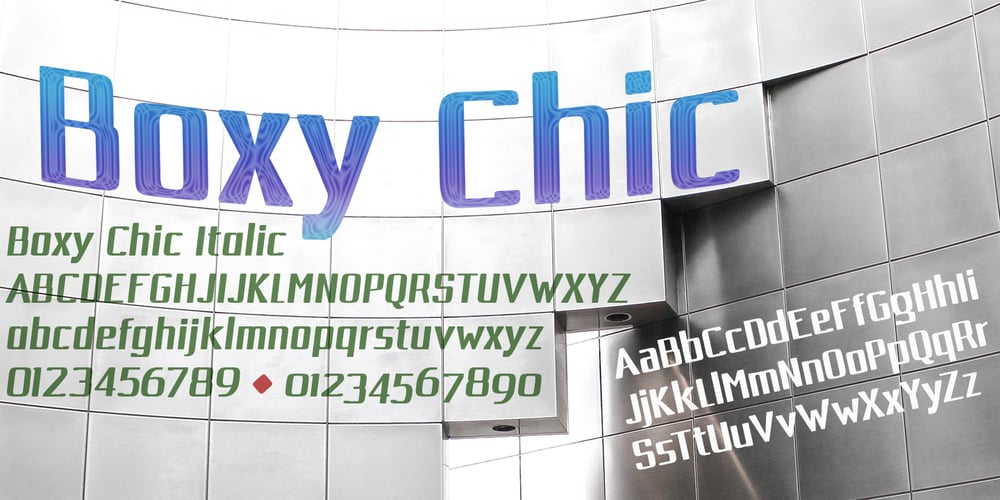
Boxy Font Family was designed by David Bergsland and published by Hackberry Font Foundry. Boxy contains 4 styles and family package options. In my on-going quest for display fonts to be used with my books and on my book covers, I decided I need a squared sans serif. I started the build off of Fiscal, a font I designed back in 2006. I never liked the font, plus my tastes have changed. So, I opened it, made it narrower, increased the x-height, and various stuff like that. I made it much heavier—an ended up with Boxy. Then my brain slapped me and said, “Why don’t you make a sorta modern version?” So, I did and decided to call that style Chic. But then I wanted a thin version also. Fiscal was always too heavy and ponderous for me. So, I made the Thin style. Finally, I felt I needed an italic of Chic. OpenType features didn’t seem to work well with the family, so all I added was oldstyle figures. So, I ended up with another of my unique families—with two unmodulated fonts: Thin and Medium, and two modulated fonts: Chic and Chic Italic. But, I’m pleased with it. My hope is that you will like it also.